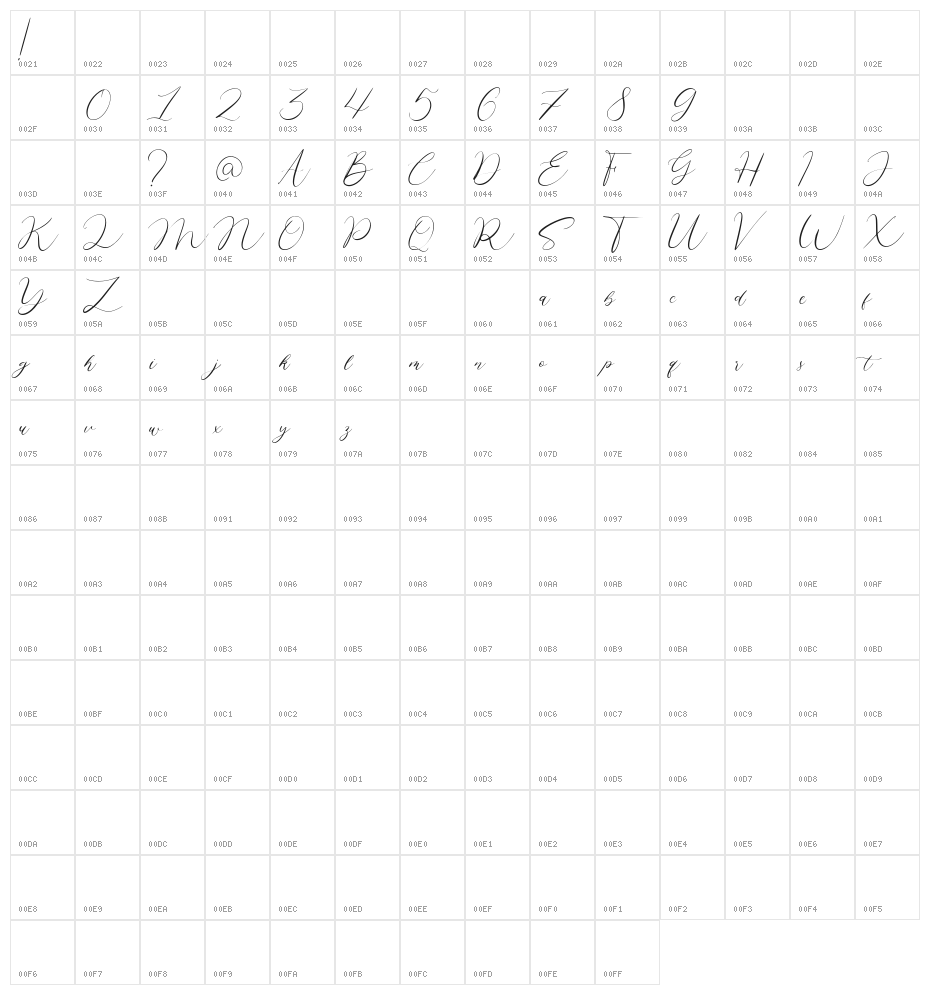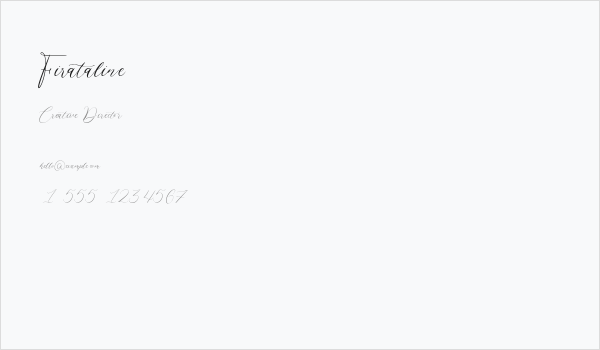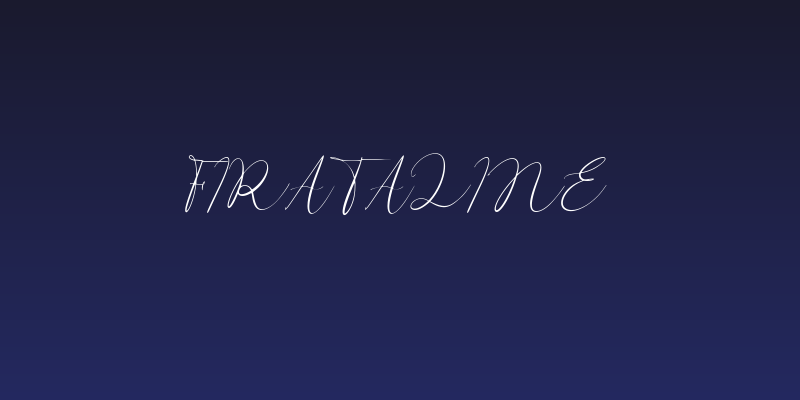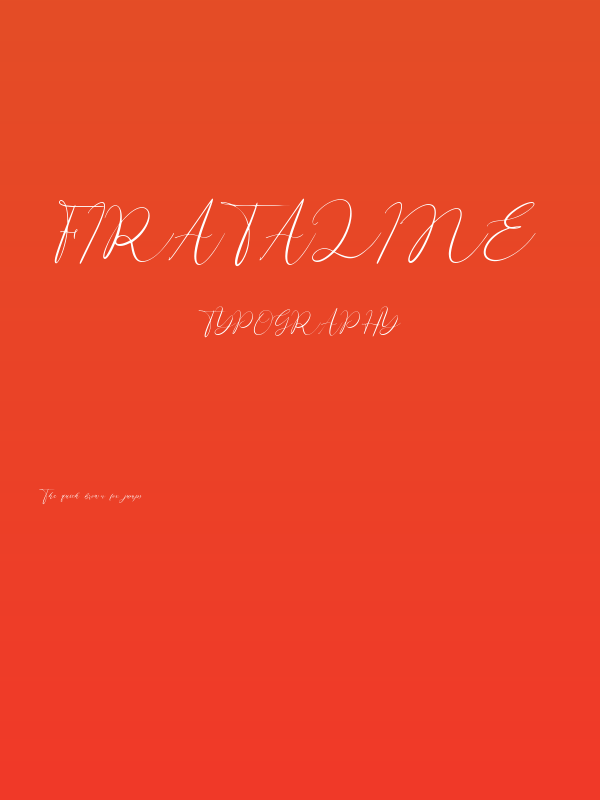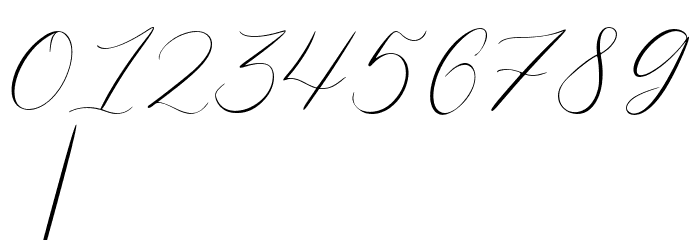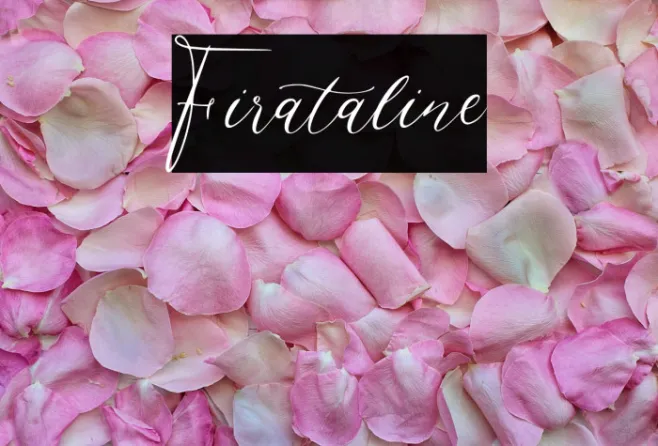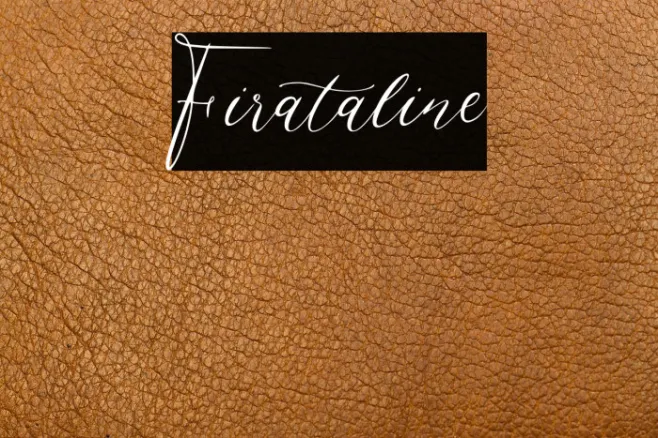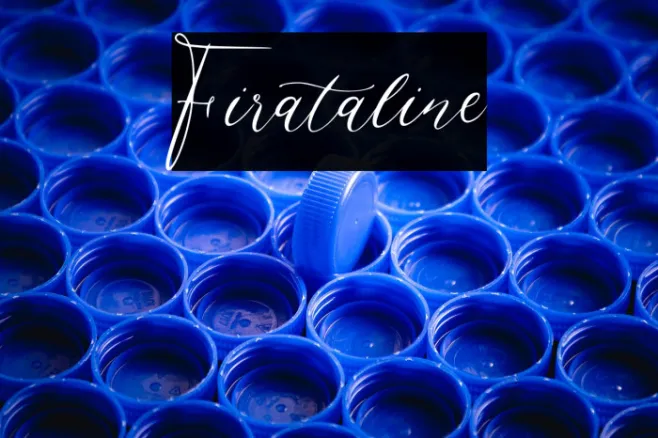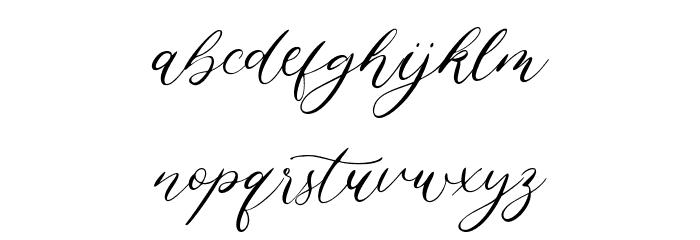
Firataline Font
Firataline Description
This elegant script font features a flowing, cursive style with delicate, thin strokes and graceful curves. The uppercase letters are tall and slender, with a slight slant that adds a sense of movement and fluidity. The lowercase letters complement the uppercase with their rounded forms and smooth connections, creating a harmonious and cohesive look. The numerals maintain the same elegant style, with consistent stroke thickness and a refined appearance. The special characters are designed to blend seamlessly with the rest of the font, maintaining its sophisticated and stylish aesthetic.
| Proposed Projects | Ideal for wedding invitations, elegant branding, personal stationery, and decorative quotes. |